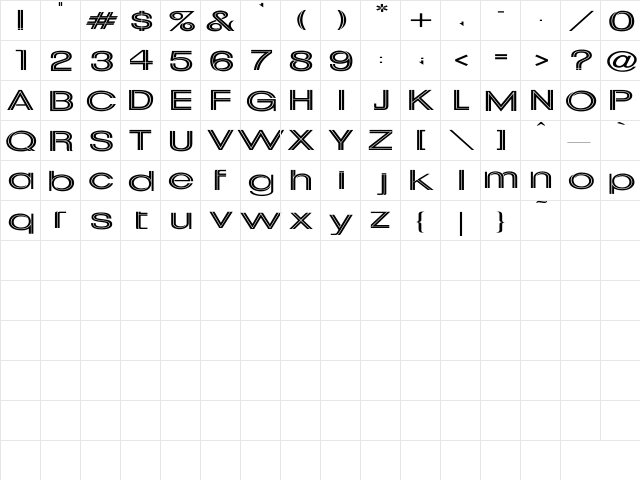
Uptight Ex Regular
Design Context for Uptight Ex Typeface
Uptight Ex is a composed and adaptable typeface that performs quietly and consistently across a wide range of design contexts.